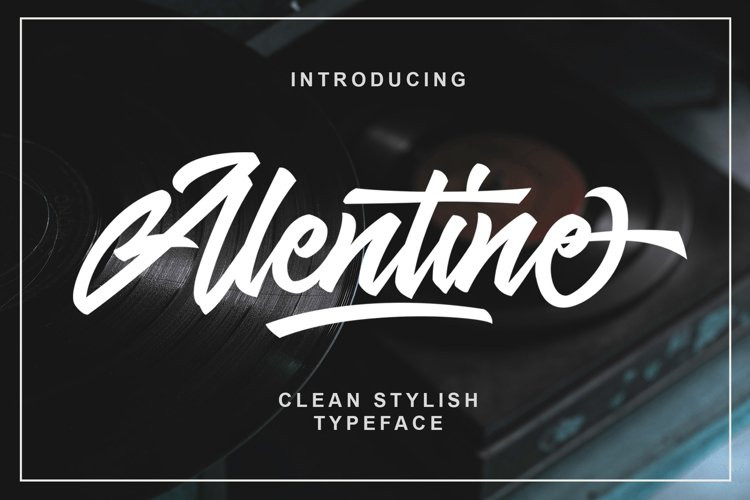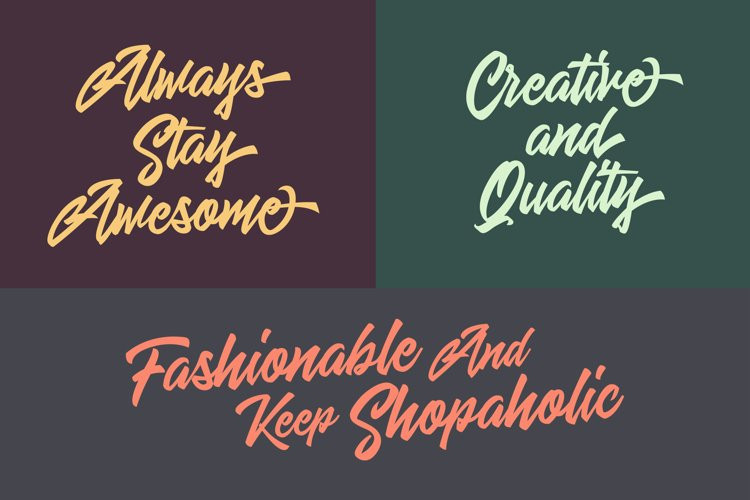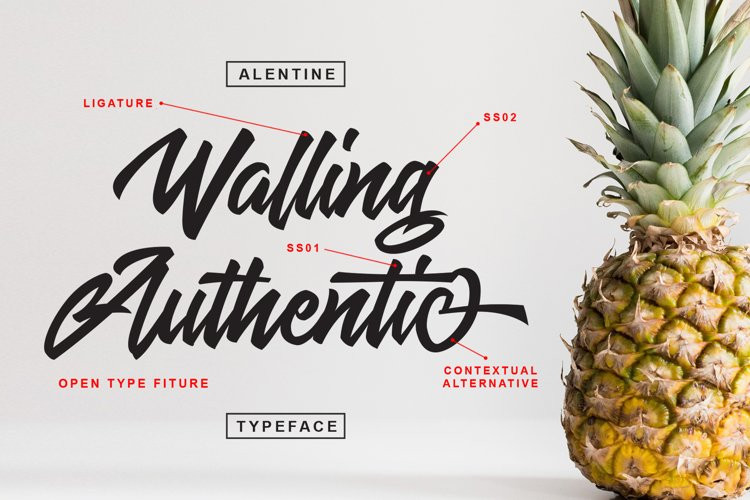
Alentine Typeface
Alentine TypefaceAlentine is a Clean and stylish script typeface.
Very ideal for logos, name tag, quotes, packaging, merchandise, greeting
cards. Alentine contains a full set of lower & uppercase,
alternative characters, punctuation, numerals, and 17 multilingual